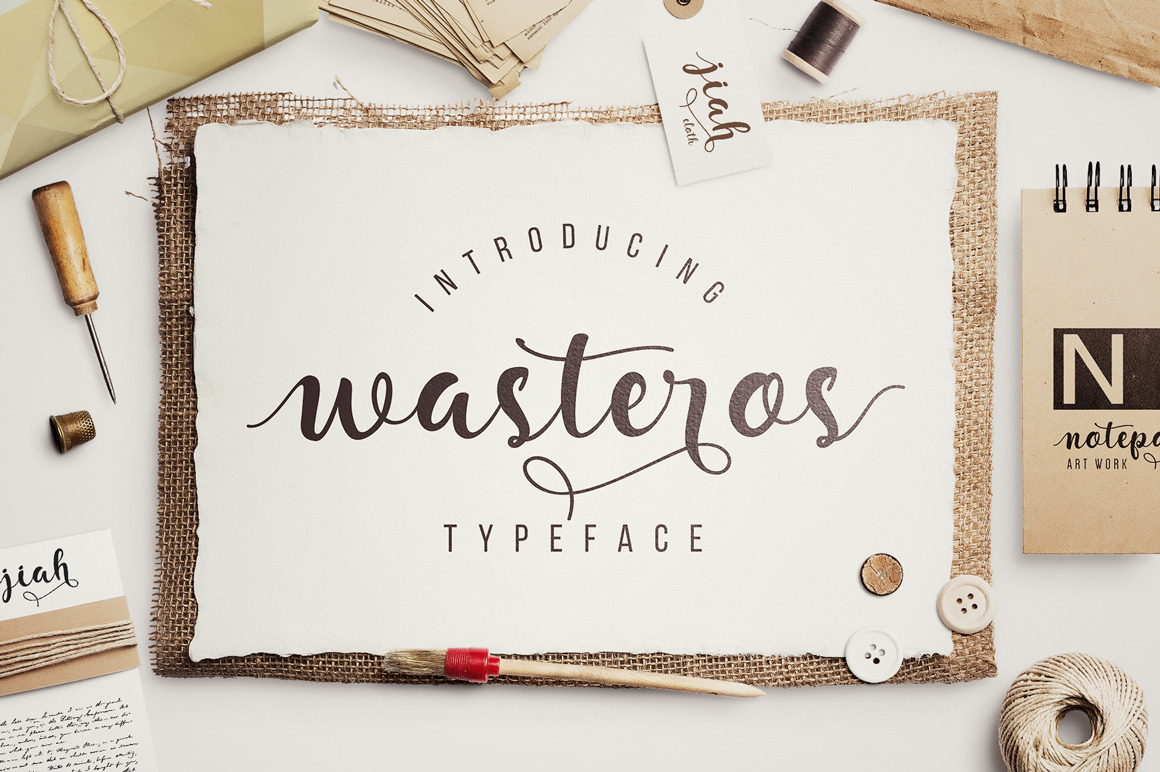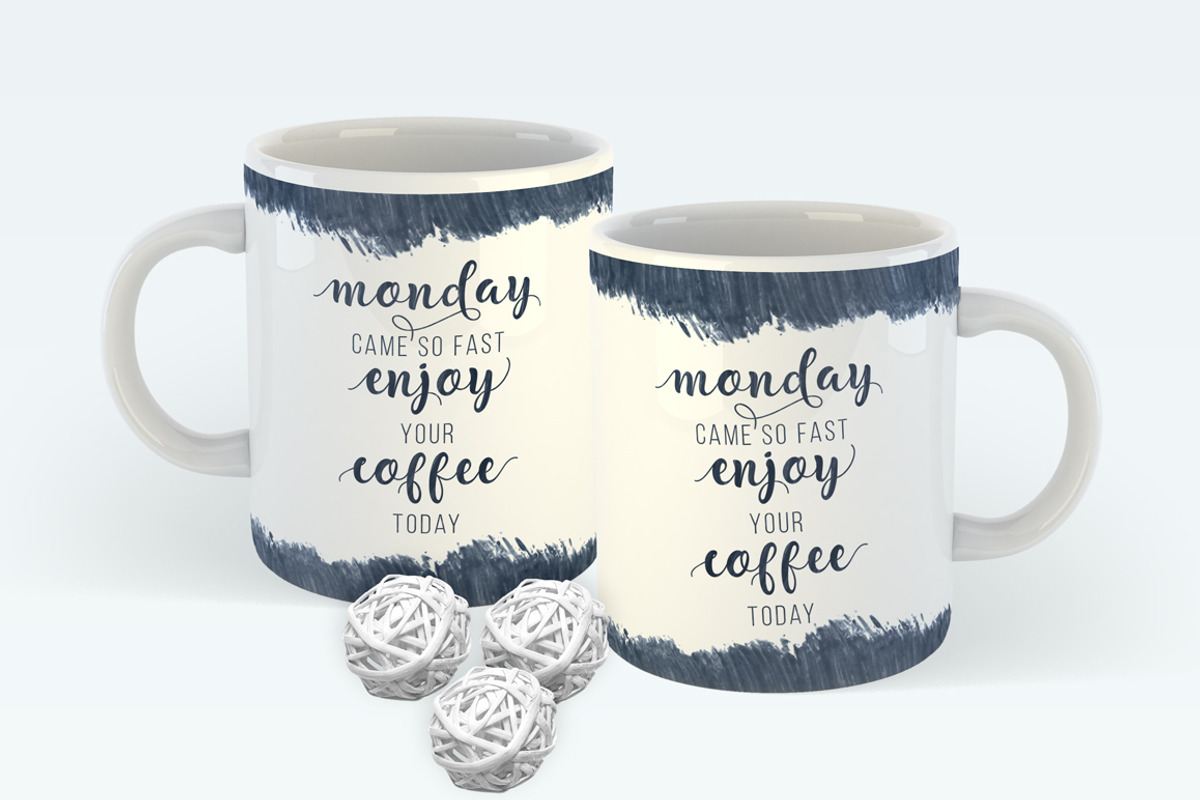
Wasteros Typeface
Wasteros Typeface is a modern hand-brush script font based, made with a brush that is then refined with pen. This font consists of letters that flows irregularly, either between top-down and with the letter afterwards, which makes it suitable for Logotype, posters, businness card, merchandise, wedding invitations, greeting cards, blog banners, apparel, design of water-based paints/prints, correspondence, quotes and a variety of other!
Wasteros Typeface includes several Ligatures, Stylistic Alternates, Stylistic Sets ( These alternates are accessible by turning on 'Stylistic Alternates' in Photoshop, or via any software with a glyph panel, e.g. Adobe Illustrator, Photoshop CC ), and has given PUA encoded (specially coded fonts).
- Standard ligatures
- Stylistic alternates
- Stylistic sets